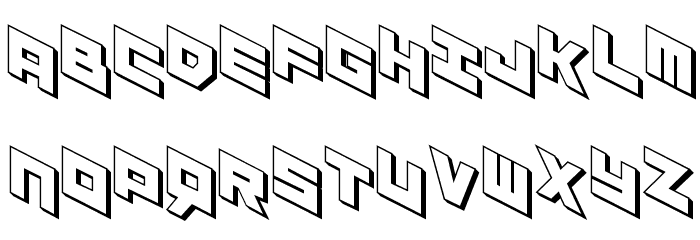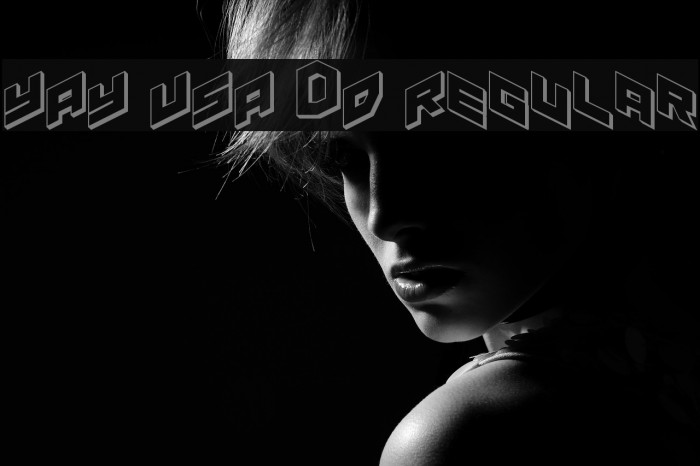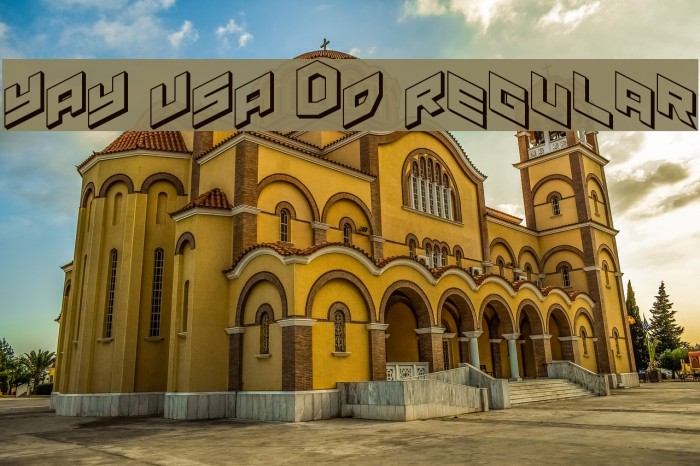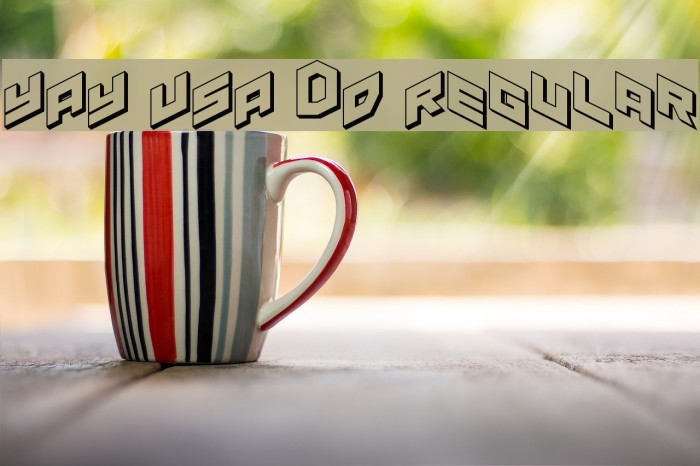
YAY USA 3D Regular Font
This font features a bold, three-dimensional design that gives each character a striking, block-like appearance. The letters are outlined with a thick black border, enhancing their 3D effect and making them stand out prominently. The style is geometric and angular, with sharp edges and a consistent width throughout each character. This font is particularly eye-catching, with a playful yet strong presence that makes it ideal for attention-grabbing designs. The uppercase and lowercase letters maintain a uniform style, and the numbers and special characters are designed to match the overall theme, ensuring a cohesive look across all text elements.
A bold, 3D geometric font with a striking block-like appearance.
- Proposed Projects: Ideal for posters, headlines, logos, and any design requiring a bold, eye-catching font.